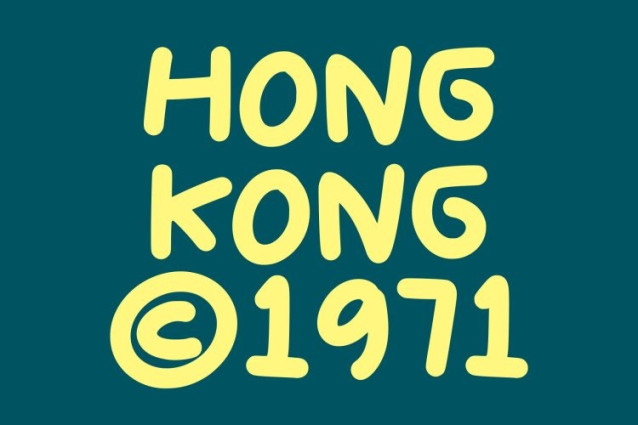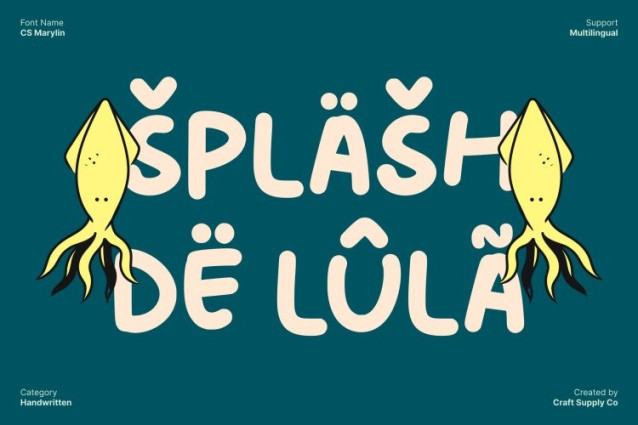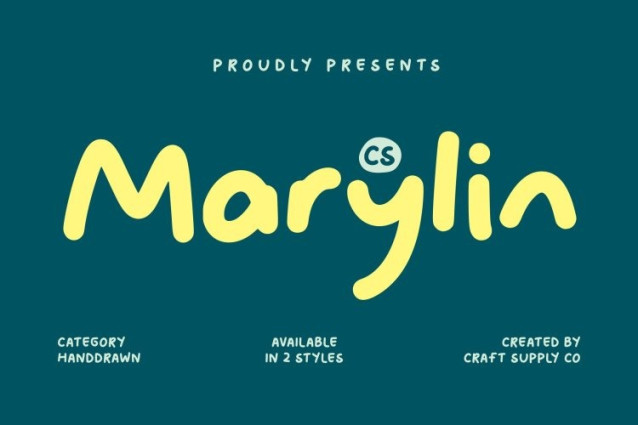
CS Marylin Font
CS Marylin Font This is a cute display font designed to radiate fun, charm, and cheerful energy. Its bouncy and friendly strokes give every letter a lively, whimsical feel, creating an approachable and joyful aesthetic. This playful personality makes perfect for projects that aim to be visually engaging, fun, and full of warmth.
Bouncy Shapes for Dynamic Visual Appeal
The energetic, slightly irregular forms of bring movement and rhythm to your text. Each character seems to dance across the page, infusing your designs with vibrancy and life. These bouncy shapes ensure that every layout feels dynamic, inviting, and irresistibly playful.
Friendly Strokes for Approachable, Lighthearted Designs
This font’s soft, rounded strokes enhance readability while maintaining its cute and cheerful appearance. Its approachable forms make text feel personal, friendly, and full of character, ensuring that designs communicate positivity and fun in a visually engaging way.
Perfect for Kids’ Projects, Party Invitations, and Fun Branding
This font shines in kids’ projects, fun party invitations, playful branding, posters, and social media graphics. Whether designing educational materials, festive event layouts, or whimsical logos, this font adds a lively and charming personality to every project. With its playful bounces and cheerful strokes, turns every design into a joyful and memorable experience.